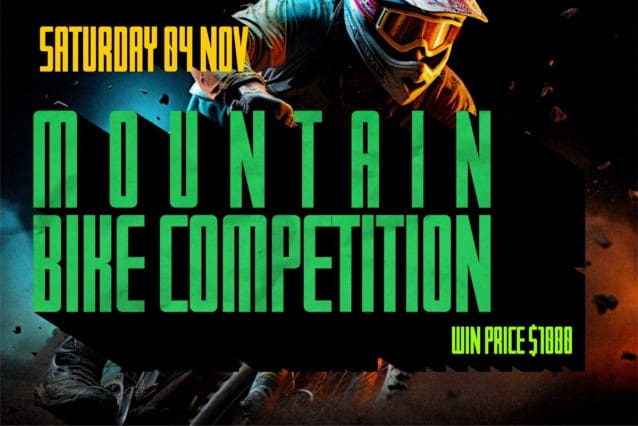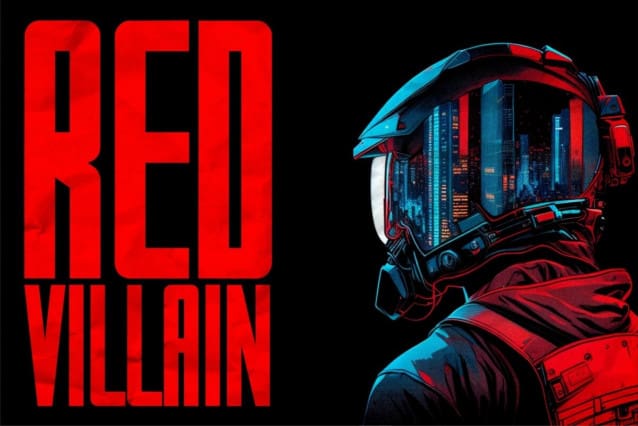
Apeinz Sans Font
Apeinz Sans Font a clean and modern sans-serif font that brings a sleek and contemporary vibe to your designs. With its minimalistic and versatile letterforms, ‘APEINZ’ is the perfect choice for a wide range of design projects.
This font is ideal for creating a crisp and modern look in branding, web design, print materials, and more. ‘APEINZ’ offers clarity and a touch of sophistication, making it a versatile addition to your typography toolkit.
Embrace the simplicity and contemporary style of ‘APEINZ’ to give your designs a fresh and timeless appeal.”